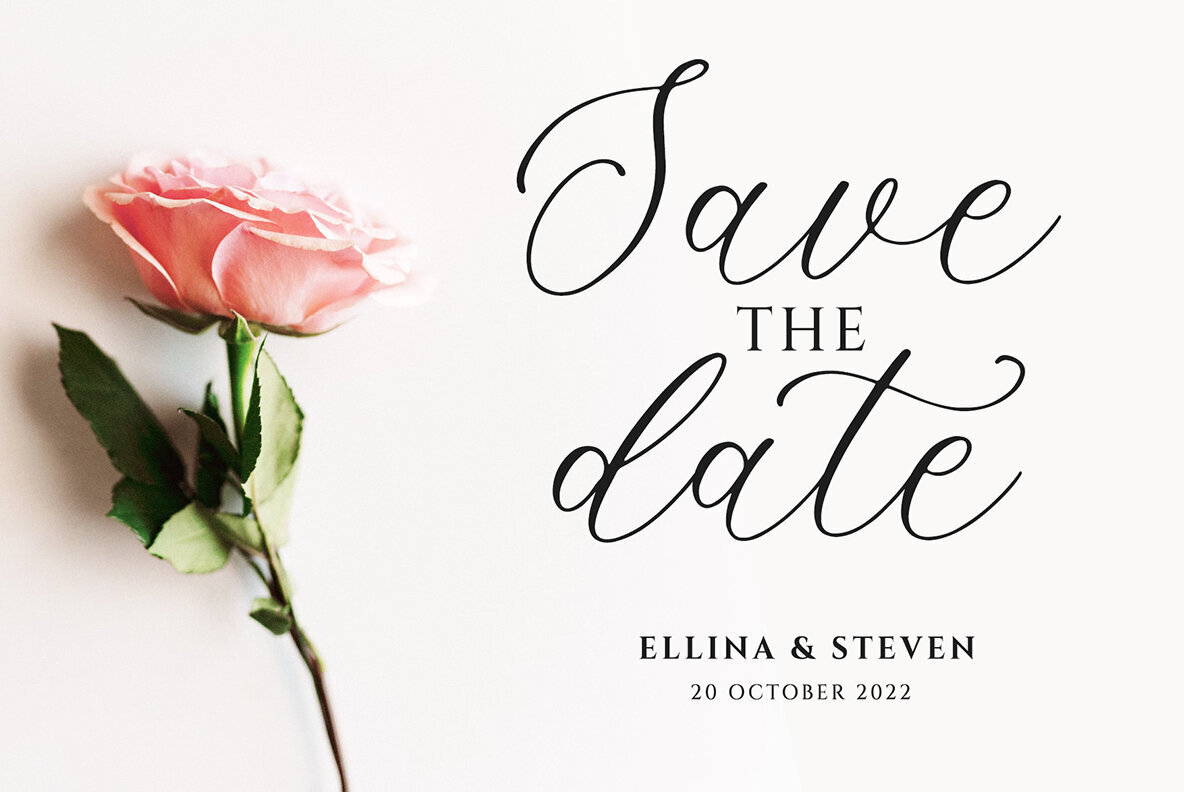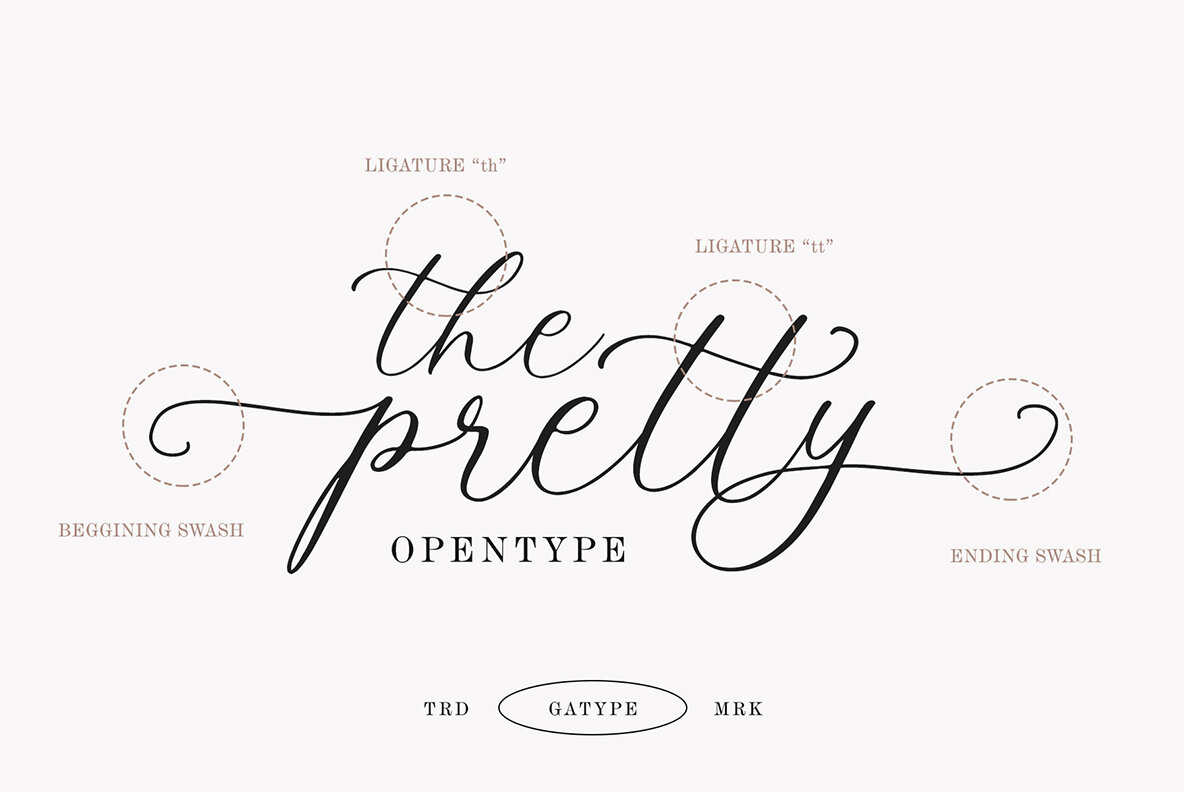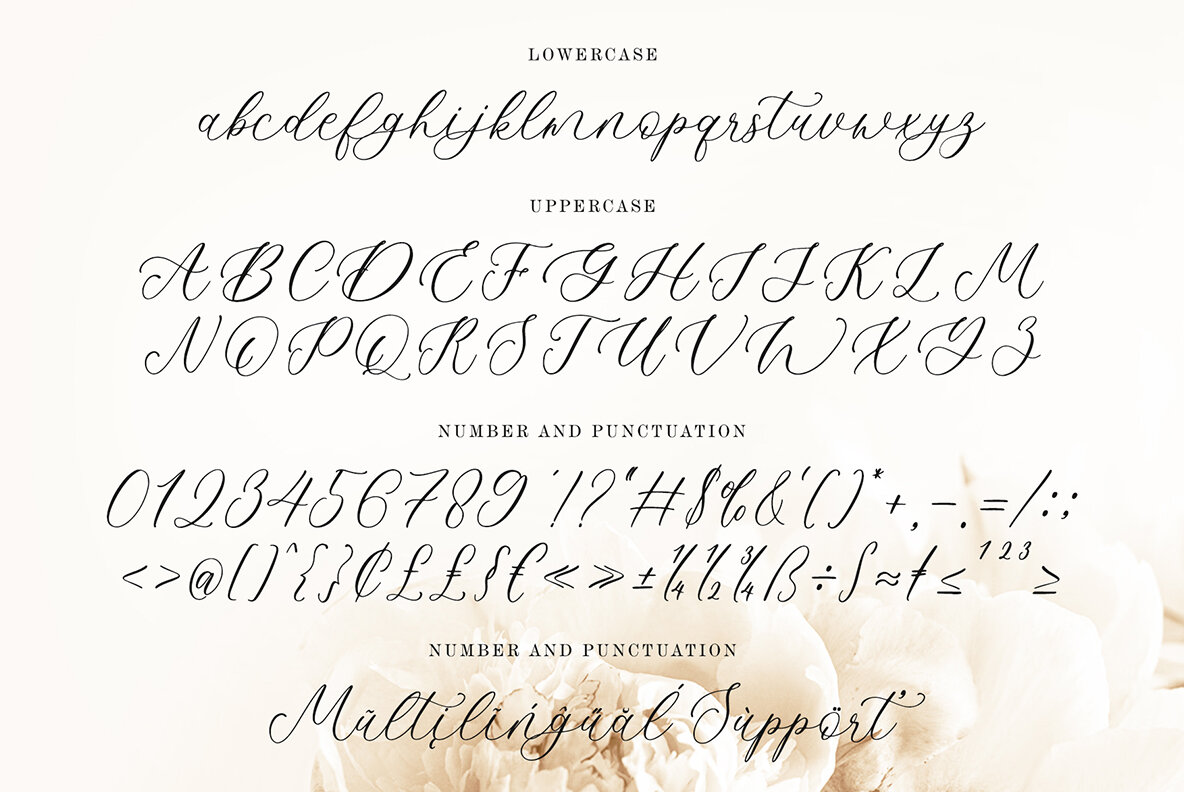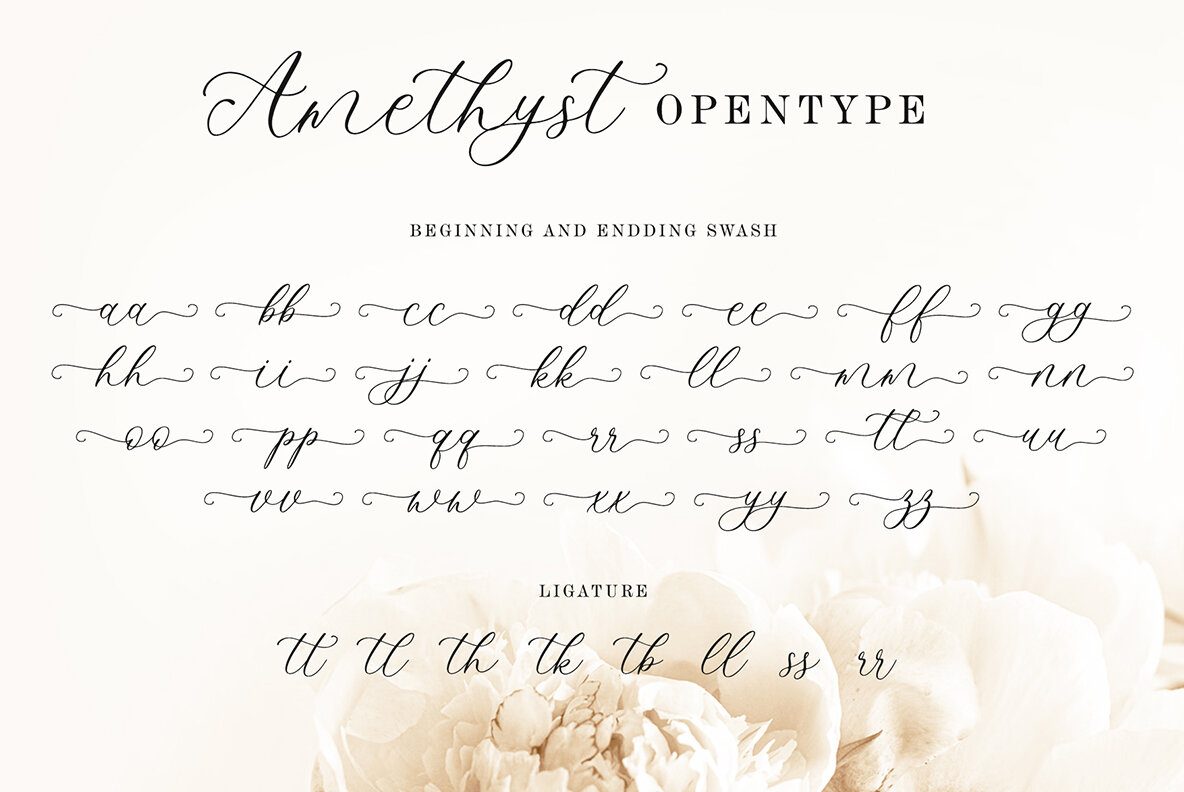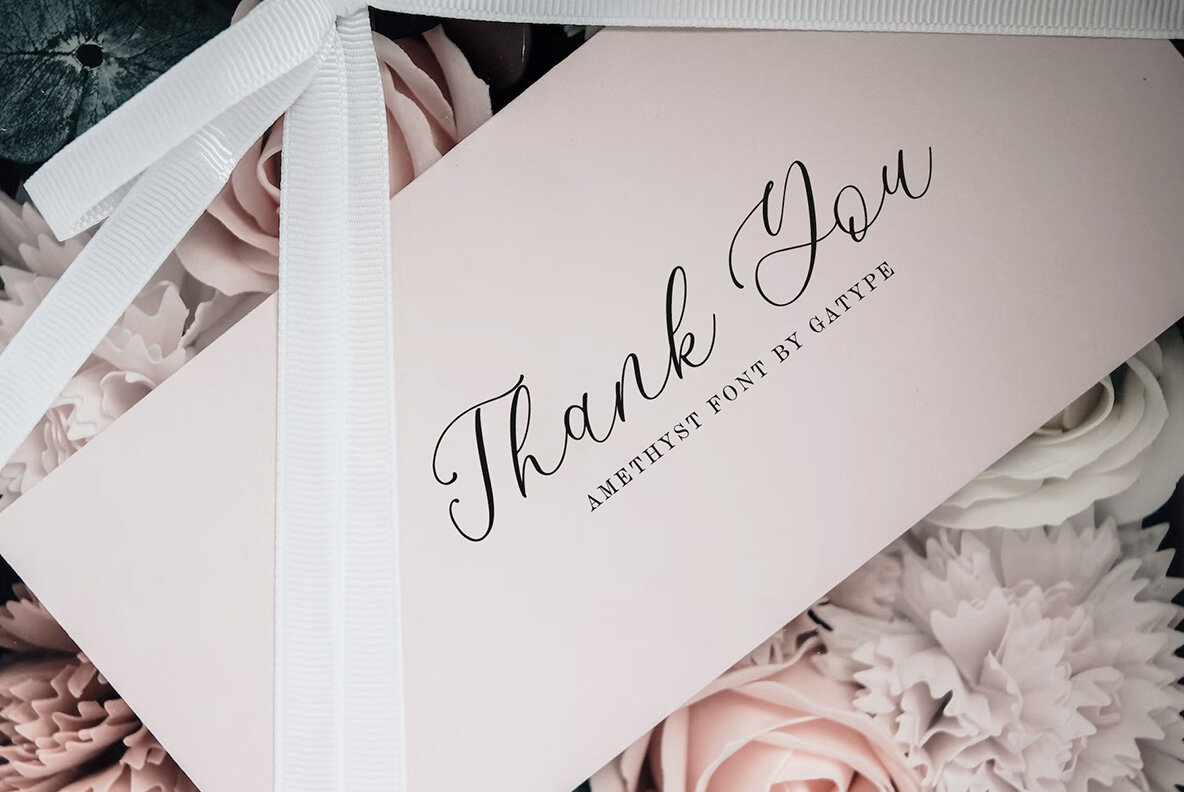
Amethyst Font
Amethyst Regular
Amethyst is a stylish calligraphy font that combines modern elegance with a casual touch. It features graceful strokes, making it suitable for a variety of creative applications.Amethyst: Elegant and Versatile Calligraphy Font